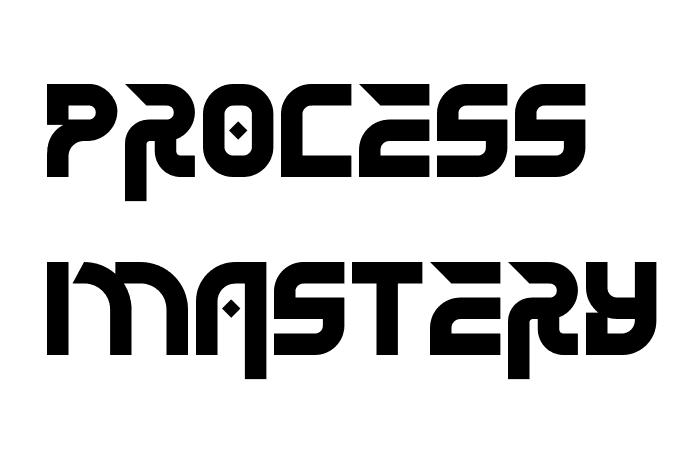
Geom Graphic W03 SemiBold
Introducing the modern Geom Graphic W03 SemiBold Font, is a cool and modern techno looking display Font This font is ideal for writing web designs, business cards, or pretty much anything else that requires a unique touch, this font designed by Ryoichi Tsunekawa is available for free download and personal use.
Font designer Ryoichi Tsunekawa
Typeface classification Techno